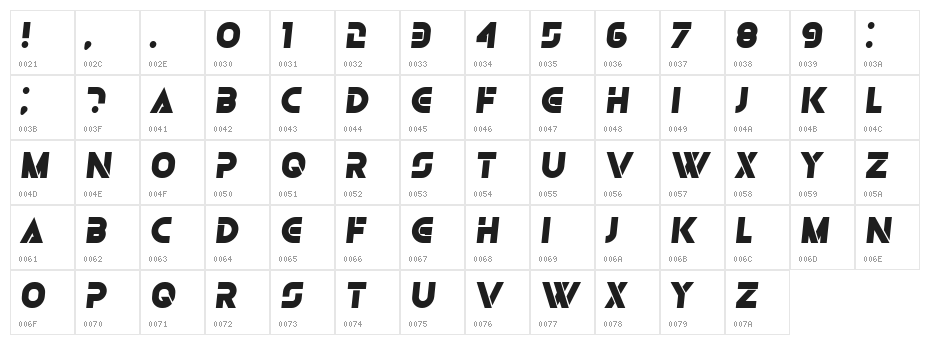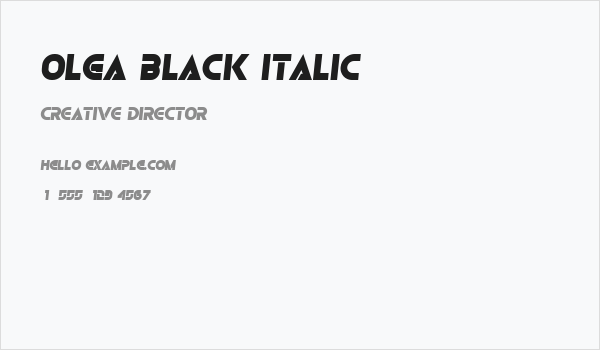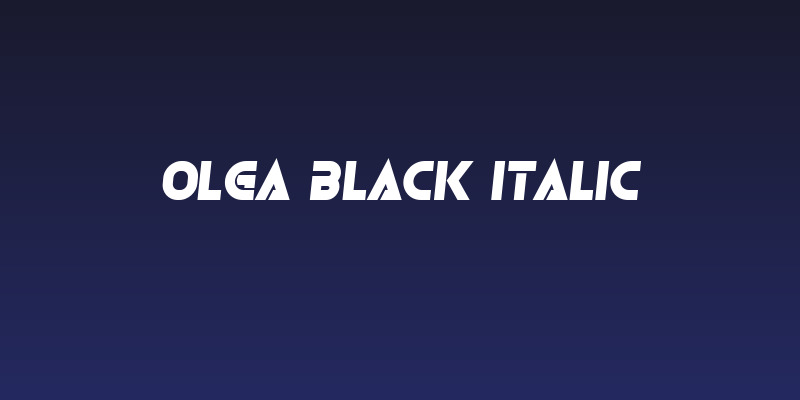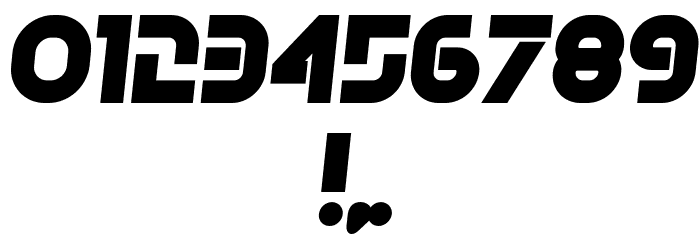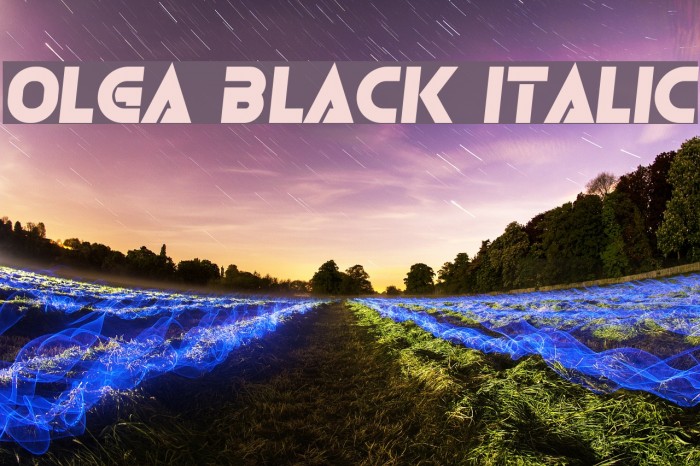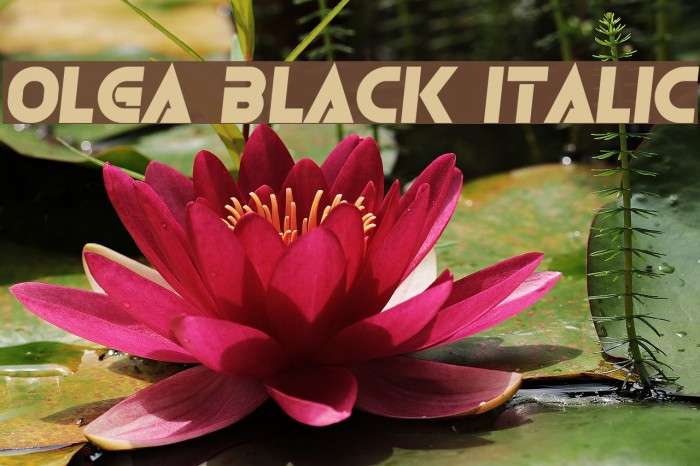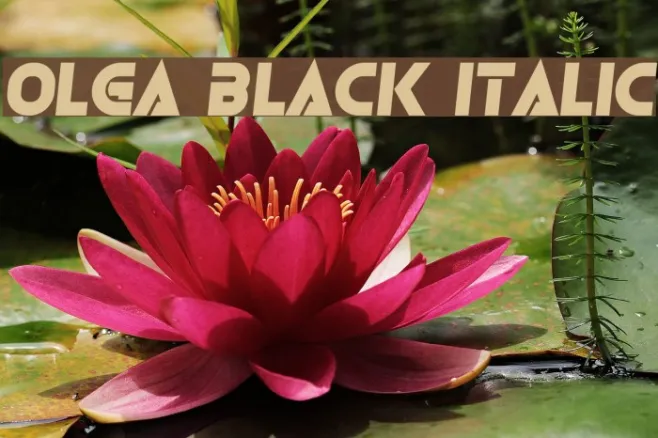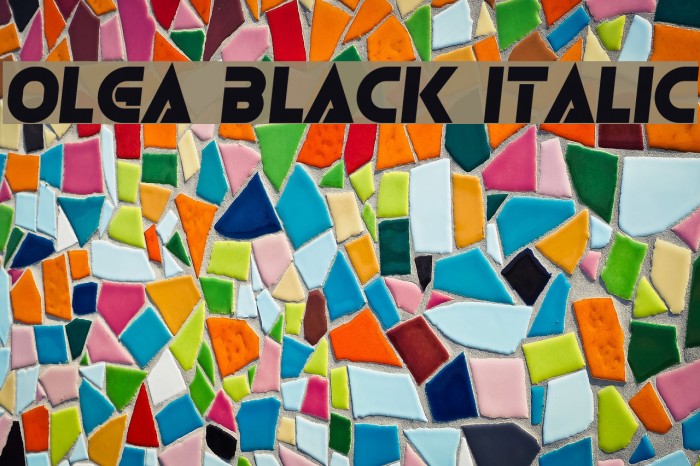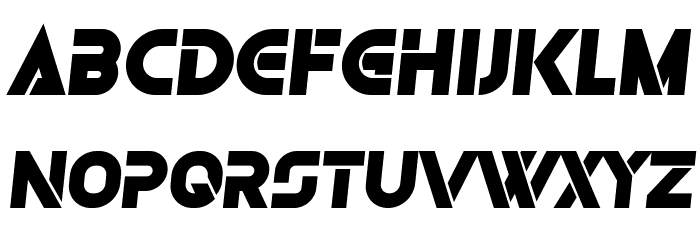
Olga Black Italic Font
Olga Black Italic Description
This font features a bold and dynamic style with a strong geometric influence. The characters are designed with sharp angles and a distinct italic slant, giving them a sense of motion and energy. The uppercase letters are particularly striking, with a futuristic and modern aesthetic. The numbers and special characters maintain the same boldness and angular design, ensuring consistency throughout the typeface. This font is ideal for projects that require a strong visual impact and a contemporary feel.
| Proposed Projects | Ideal for branding, advertising, posters, and any design requiring a bold, modern look. |